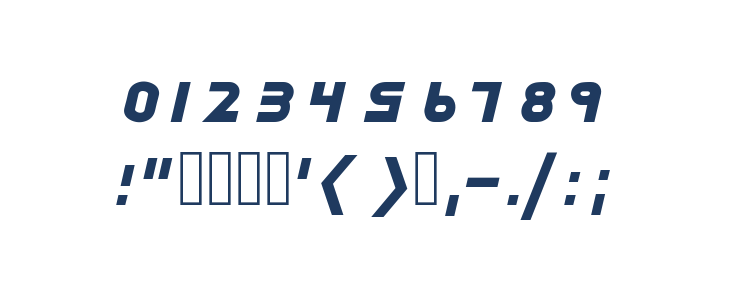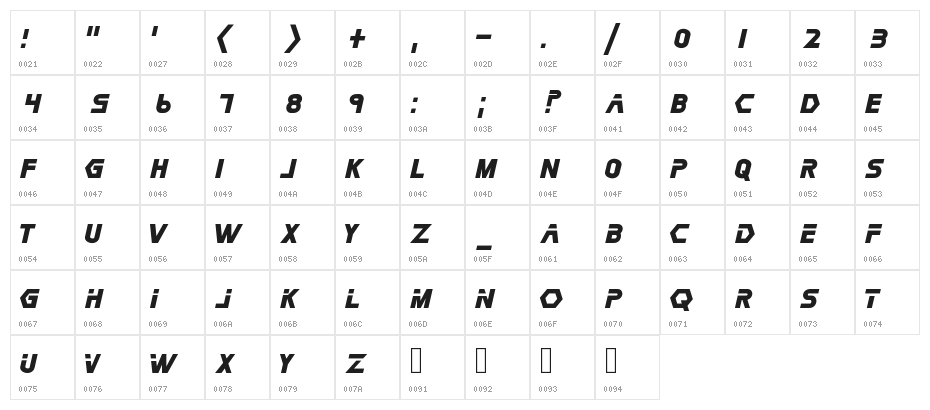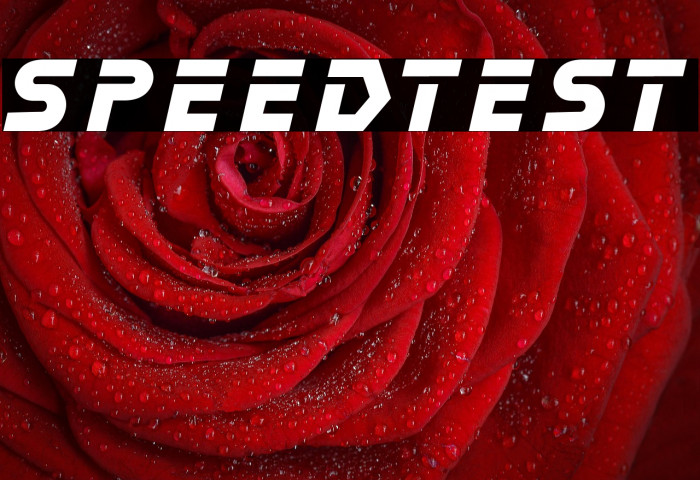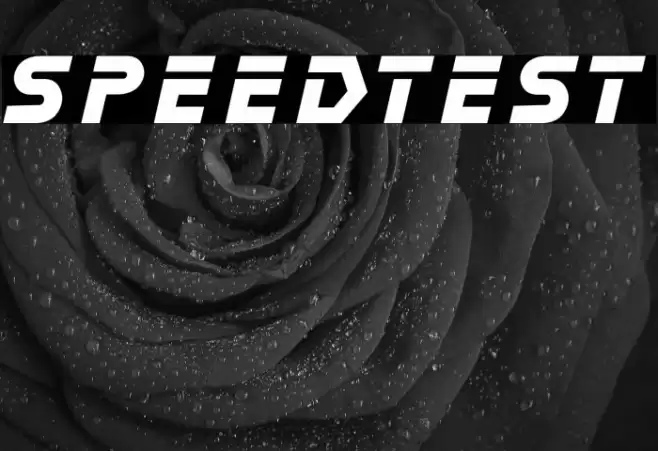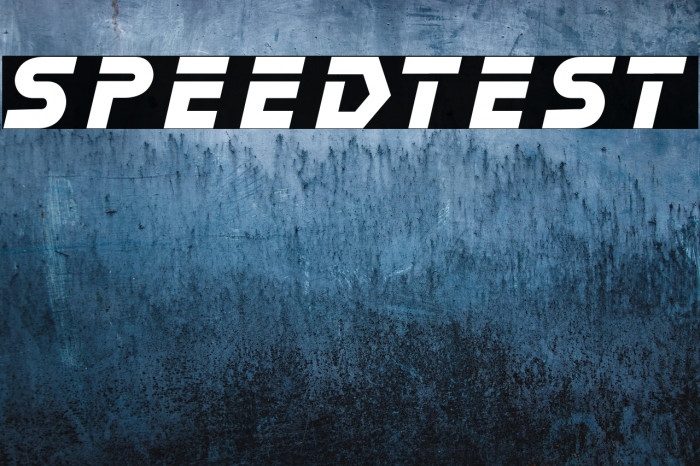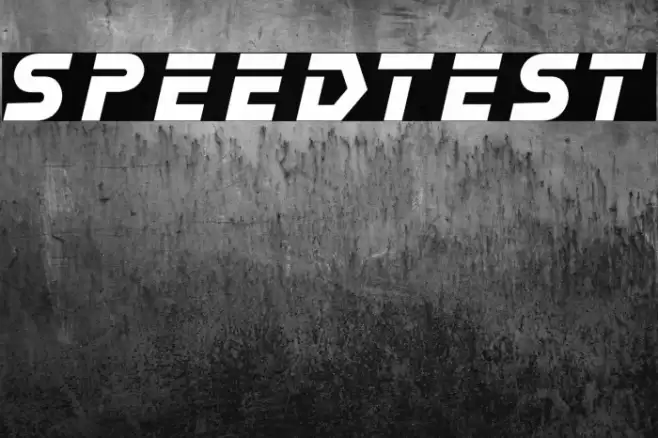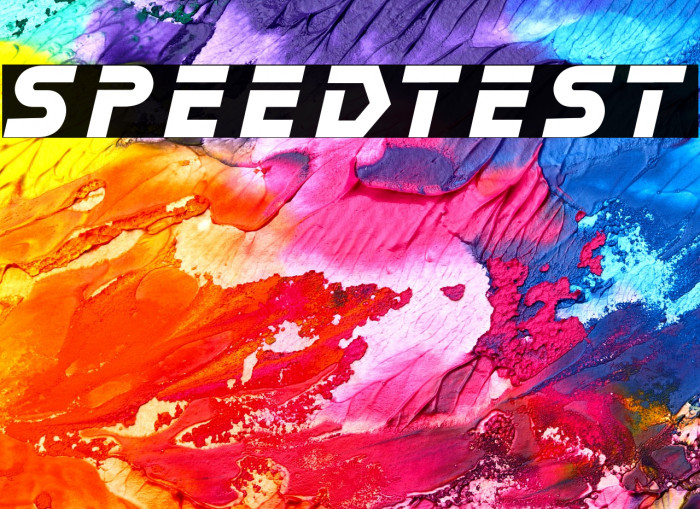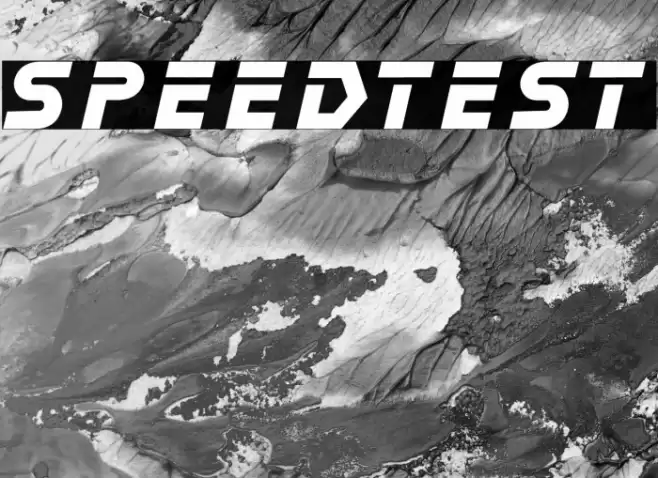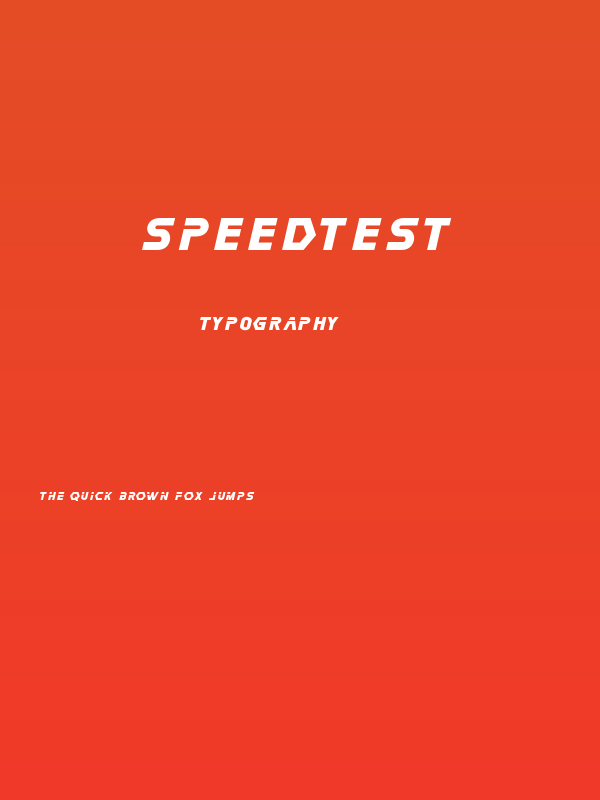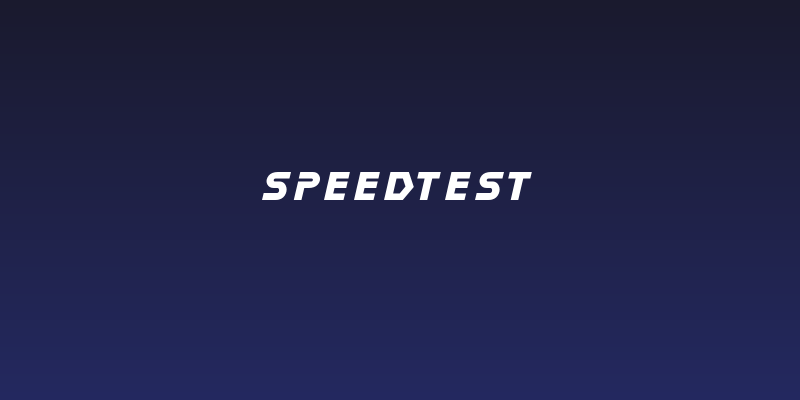
speedtest Font
speedtest Description
This font features a bold and dynamic design with a strong geometric influence. The characters are slightly slanted, giving a sense of motion and speed. The angular cuts and sharp edges contribute to a futuristic and modern aesthetic. The uppercase and lowercase letters maintain a consistent style, with a uniform stroke width that enhances readability. Numbers and special characters are designed with the same angular and bold characteristics, ensuring a cohesive look across all elements. This font is ideal for projects that require a modern and energetic feel, such as sports branding, tech-related designs, or dynamic advertising campaigns.